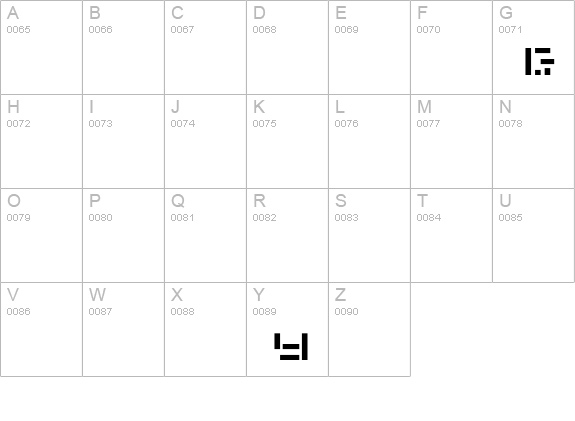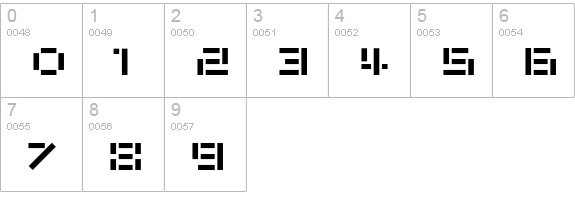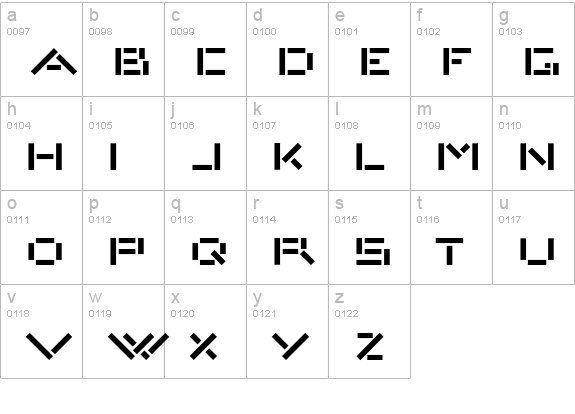
VanDerLeckAT plain Font Details
Introducing VanDerLeckAT plain font, a stunning typeface that effortlessly blends elegance with simplicity. This versatile font is perfect for adding a touch of sophistication to any project, whether it be a logo, website design, or printed materials. VanDerLeckAT plain font features clean and sleek lines, making it easy to read and highly legible. Its timeless design allows it to be used in various contexts, from modern to classic themes. The carefully crafted letterforms exude a sense of professionalism and style, making it an excellent choice for both professional designers and casual users alike. One of the most appealing aspects of VanDerLeckAT plain font is that it is available for free download at FontsMarket.com. This means that you can easily access and utilize this fantastic font without any cost. FontsMarket.com is a reputable source for high-quality fonts, ensuring that you can trust the authenticity and reliability of VanDerLeckAT plain font. With VanDerLeckAT plain font, you can effortlessly elevate your design projects to new heights. Its versatility, readability, and timeless appeal make it an essential addition to any designer's toolkit. Whether you're creating a logo for your business or designing a beautiful website, VanDerLeckAT plain font will help you achieve a professional and polished look. Don't miss out on the opportunity to enhance your designs with this exceptional font. Download VanDerLeckAT plain font for free at FontsMarket.com and unlock a world of possibilities for your creative endeavors.